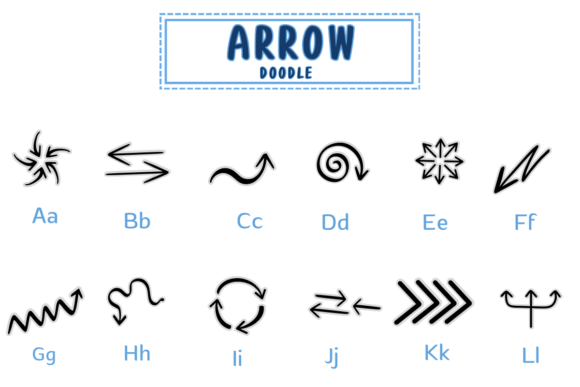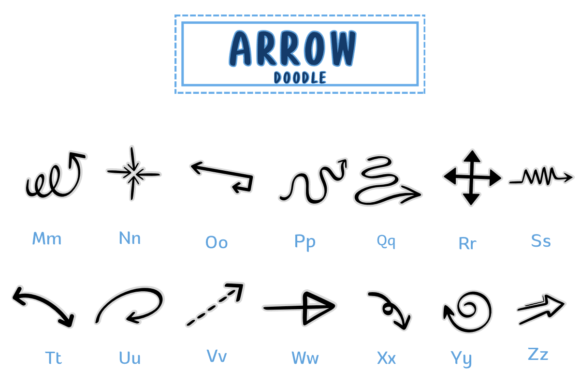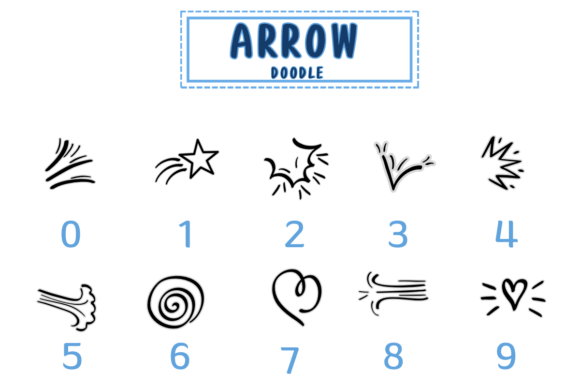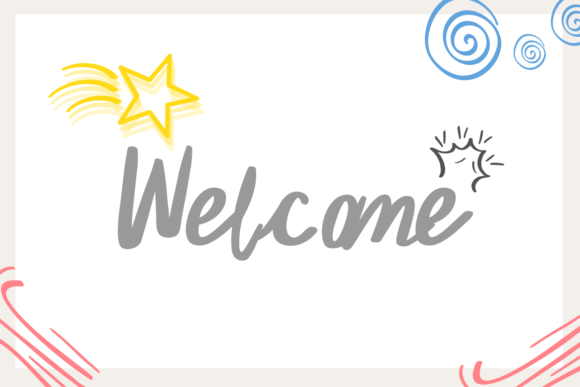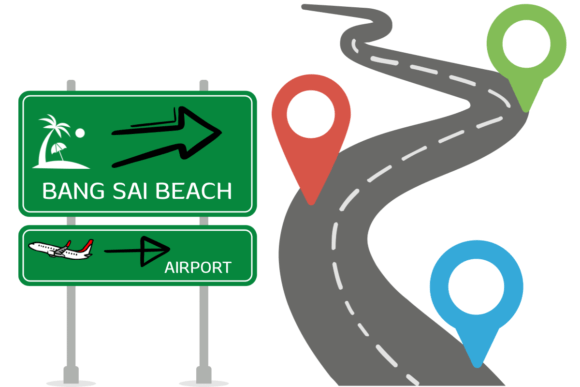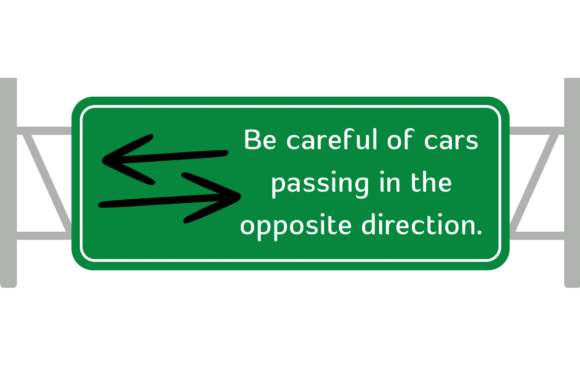
The Arrow Doodle Font: A Sketched Style Delight for Creative Projects
I’ll never forget the moment I stumbled upon the perfect font for a wedding invitation project. I was working late, surrounded by scraps of paper, and my client was breathing down my neck for a unique design. That’s when I discovered the Arrow Doodle font – a game-changer for any creative project. In this article, I’ll share my experience with this dingbats font, its features, and how to make the most of it in various design platforms.
An Honest Review of Arrow Doodle Font
- ✨ The sketched style of Arrow Doodle adds a personal touch to any design, making it perfect for wedding invitations, DIY projects, and crafts.
- ✅ The font is incredibly versatile, suitable for logos, decorations, and a wide range of creative ideas.
- 🎨 The doodle style allows for a lot of creative freedom, enabling designers to experiment with different colors and textures.
While Arrow Doodle is an excellent font, there are a few things to keep in mind:
- ⚠️ The font may not be suitable for very formal or traditional designs, as its sketched style can come across as playful or informal.
- 🤔 Some characters may require manual adjustments to ensure proper spacing and alignment.
The Backstory of Arrow Doodle Font
The Arrow Doodle font was created with the intention of providing a unique, hand-drawn look for creative projects. The designer aimed to craft a font that would add a personal touch to designs, making it perfect for wedding invitations, DIY projects, and crafts. The font’s sketched style is meant to evoke a sense of playfulness and creativity.
Q: What type of projects is Arrow Doodle suitable for?
A: Arrow Doodle is perfect for creative projects such as wedding invitations, DIY crafts, decorations, logos, and more.
Q: Is Arrow Doodle a difficult font to use?
A: No, Arrow Doodle is relatively easy to use, even for beginners. Its simplicity and versatility make it a great choice for designers of all levels.
Q: Can I use Arrow Doodle with other fonts?
A: Yes, Arrow Doodle can be paired with other fonts to create a unique look. Experiment with different font combinations to find the perfect match for your design.